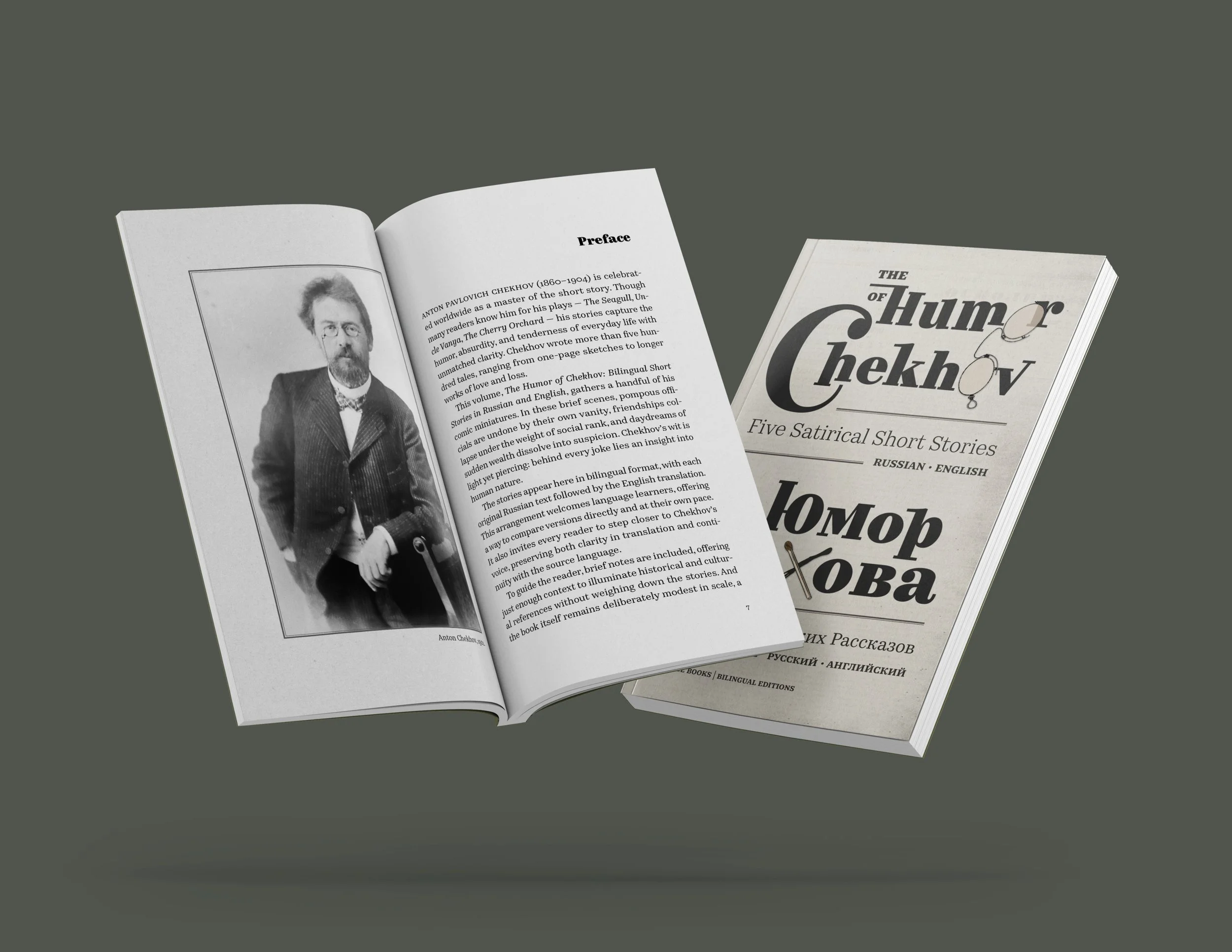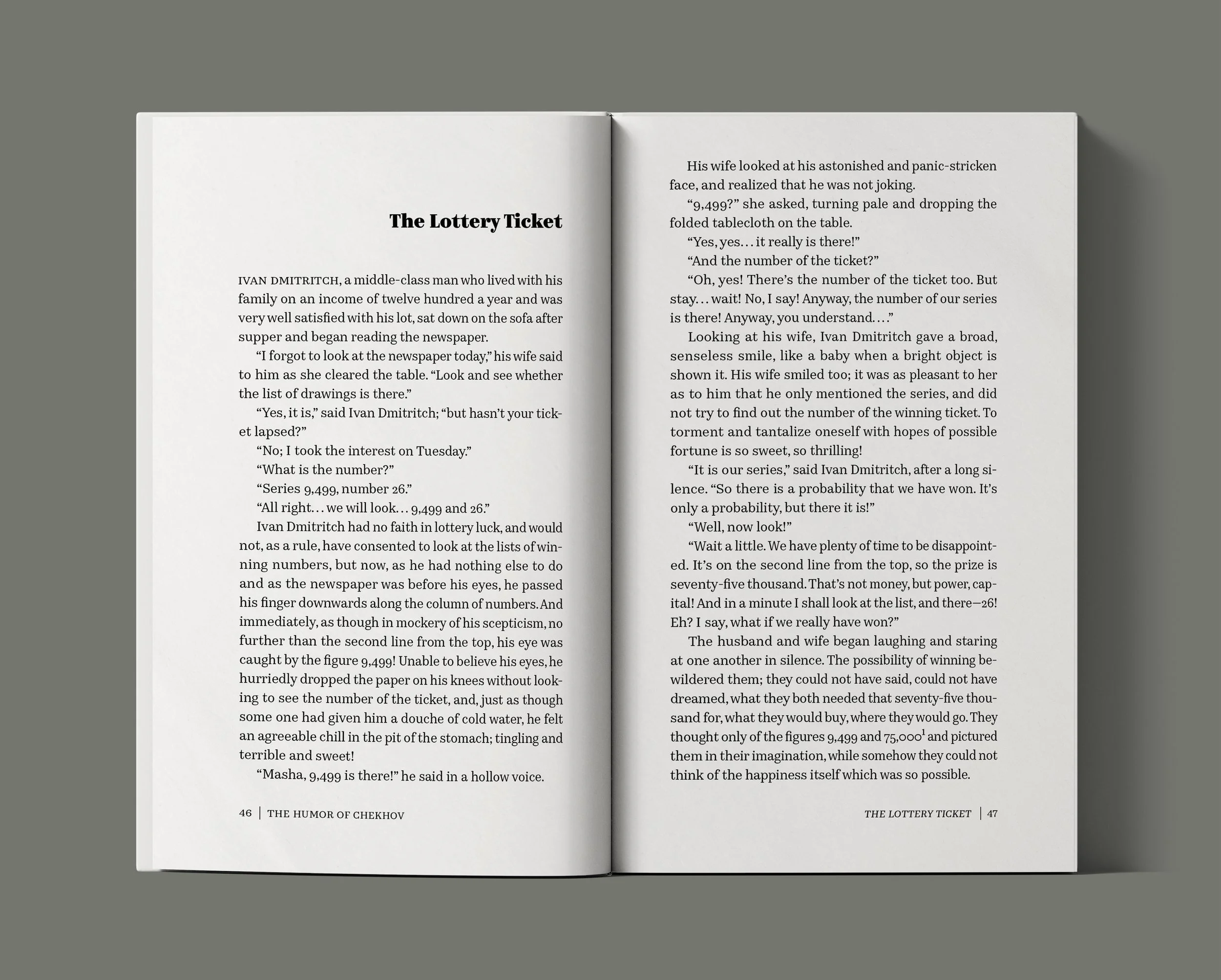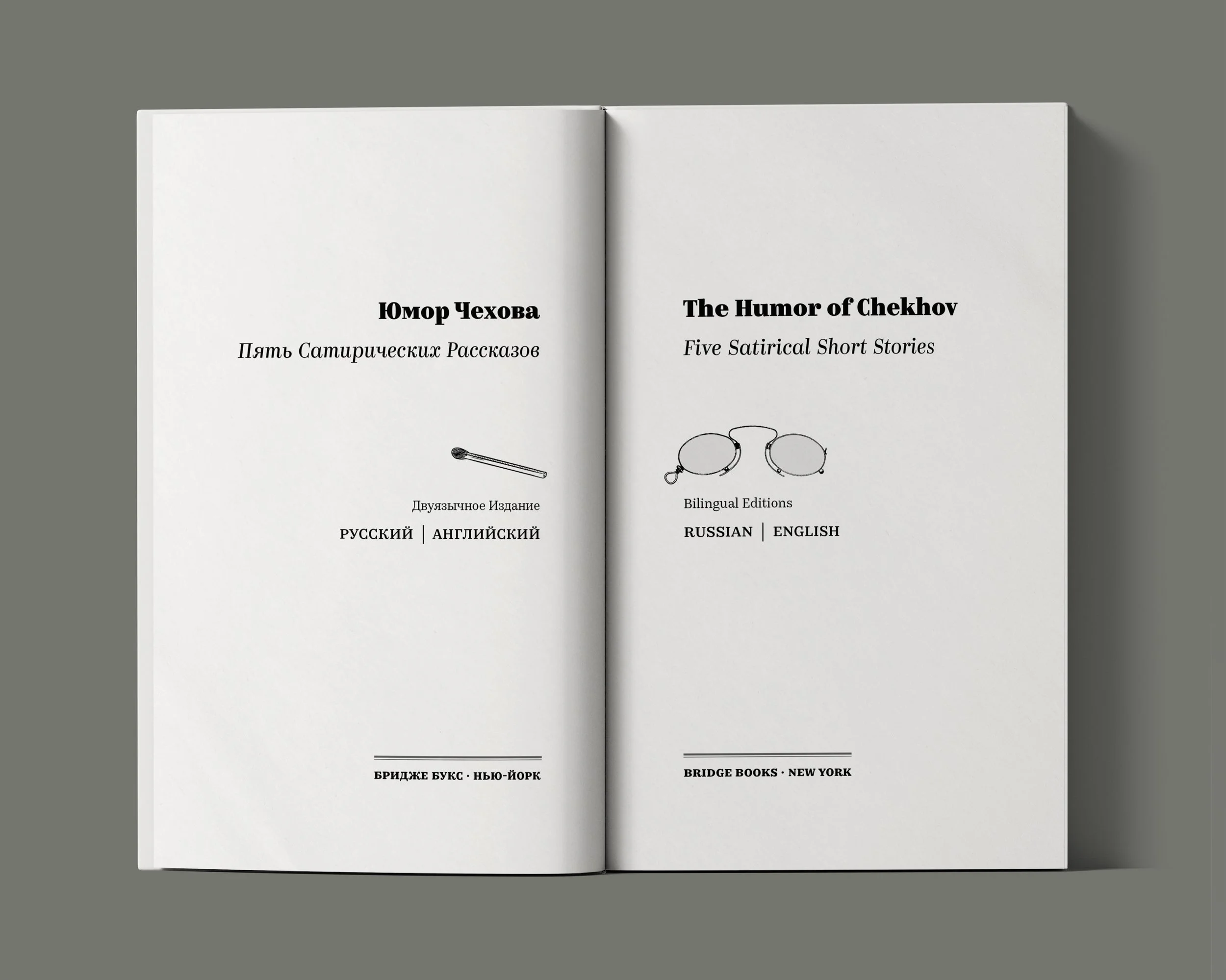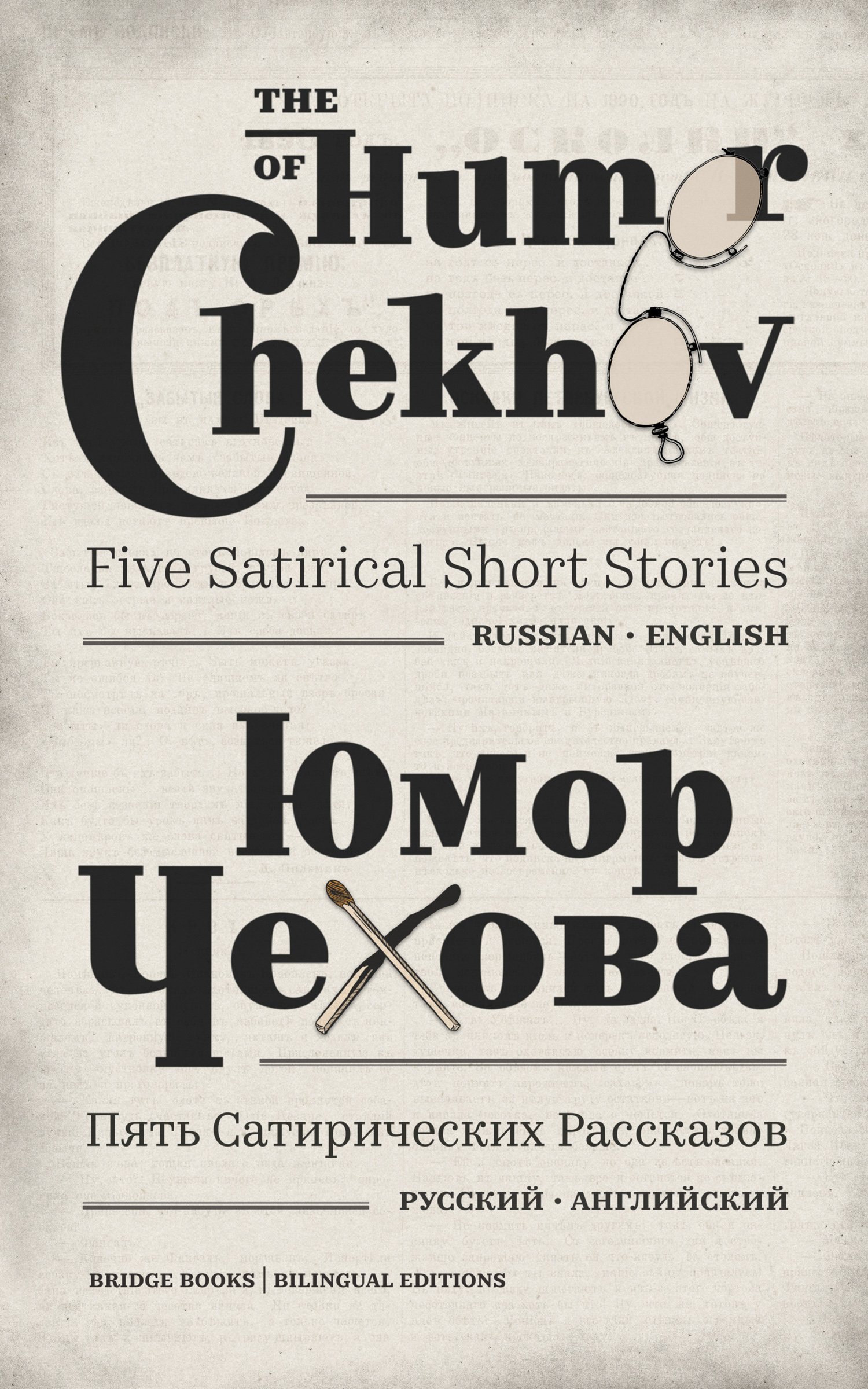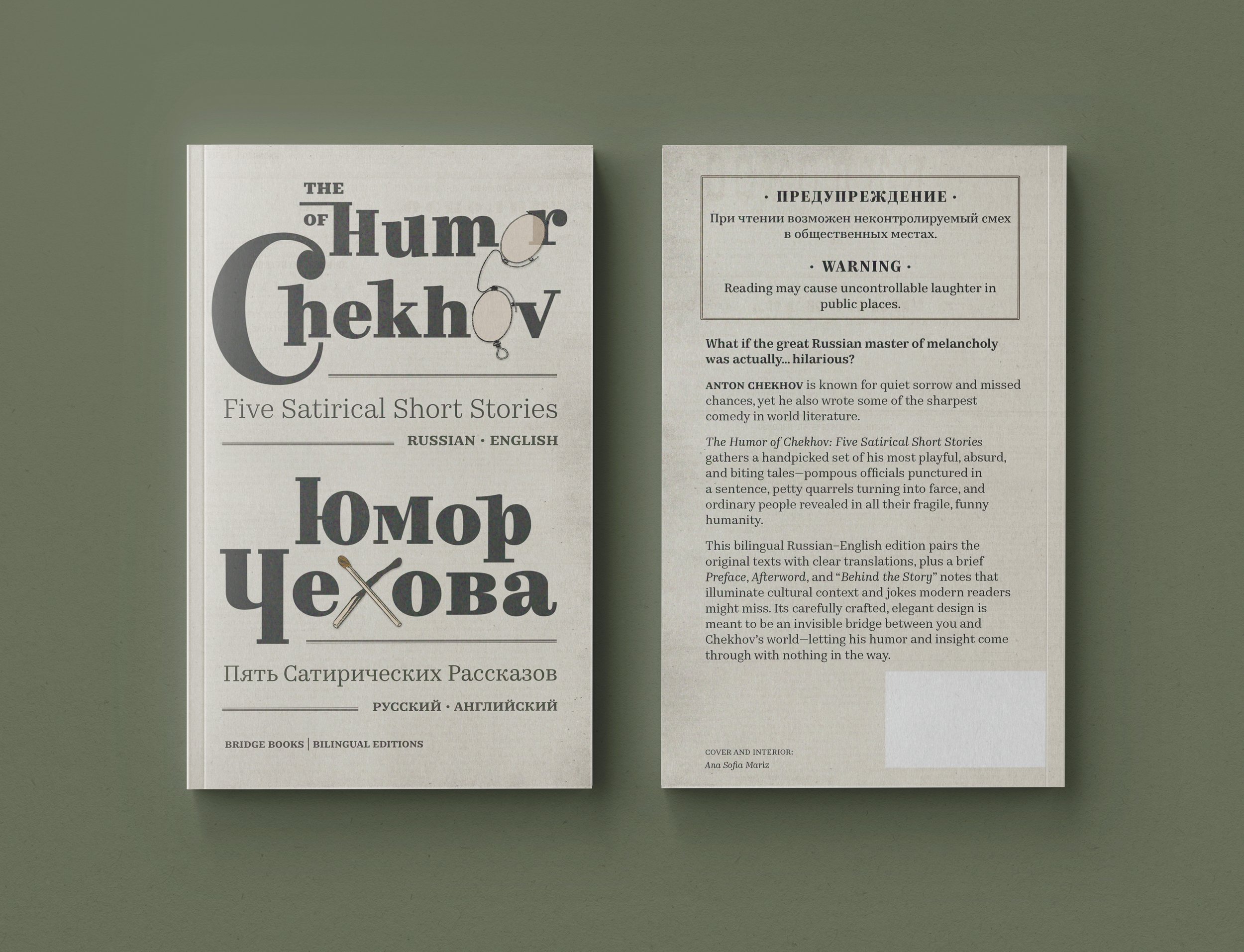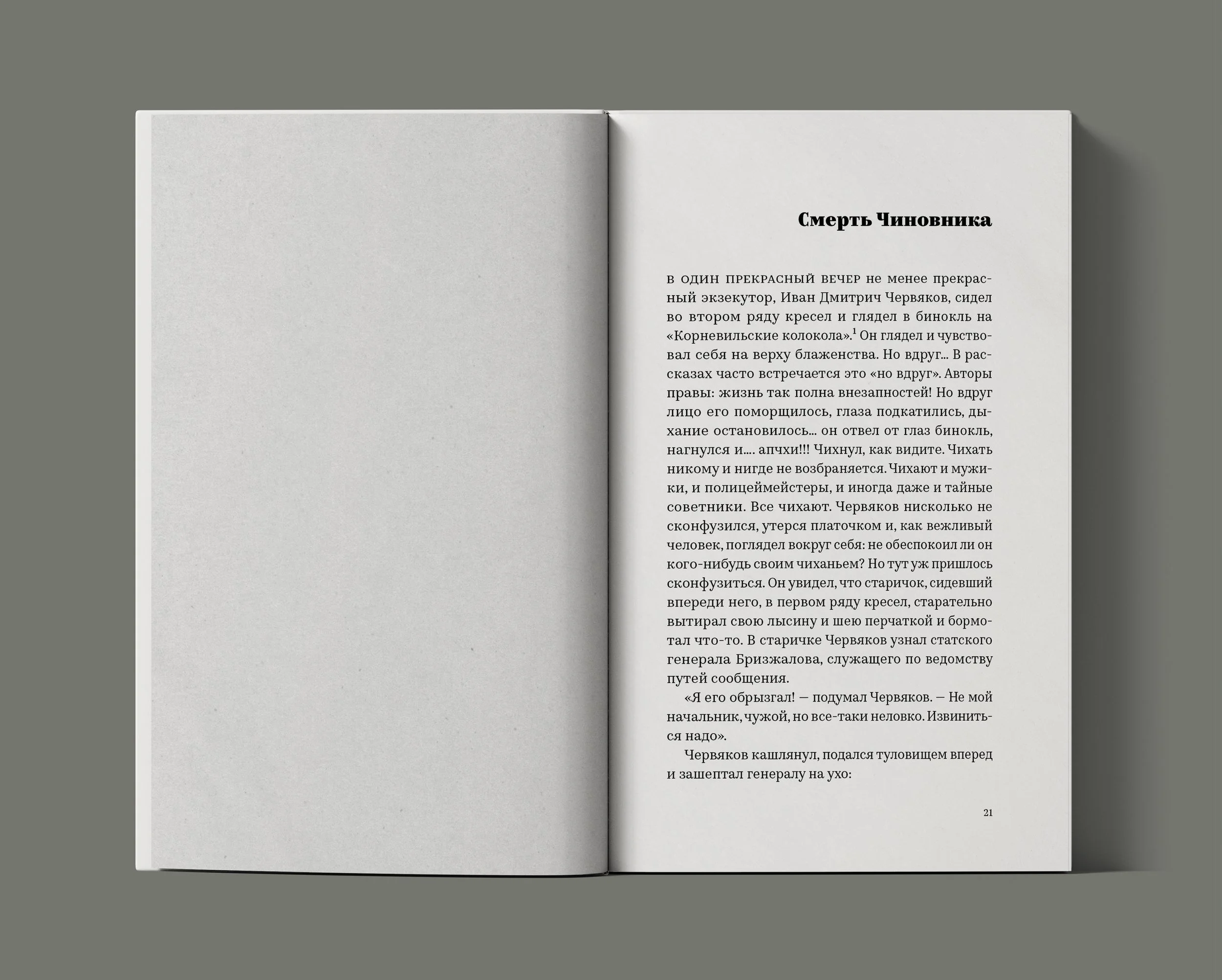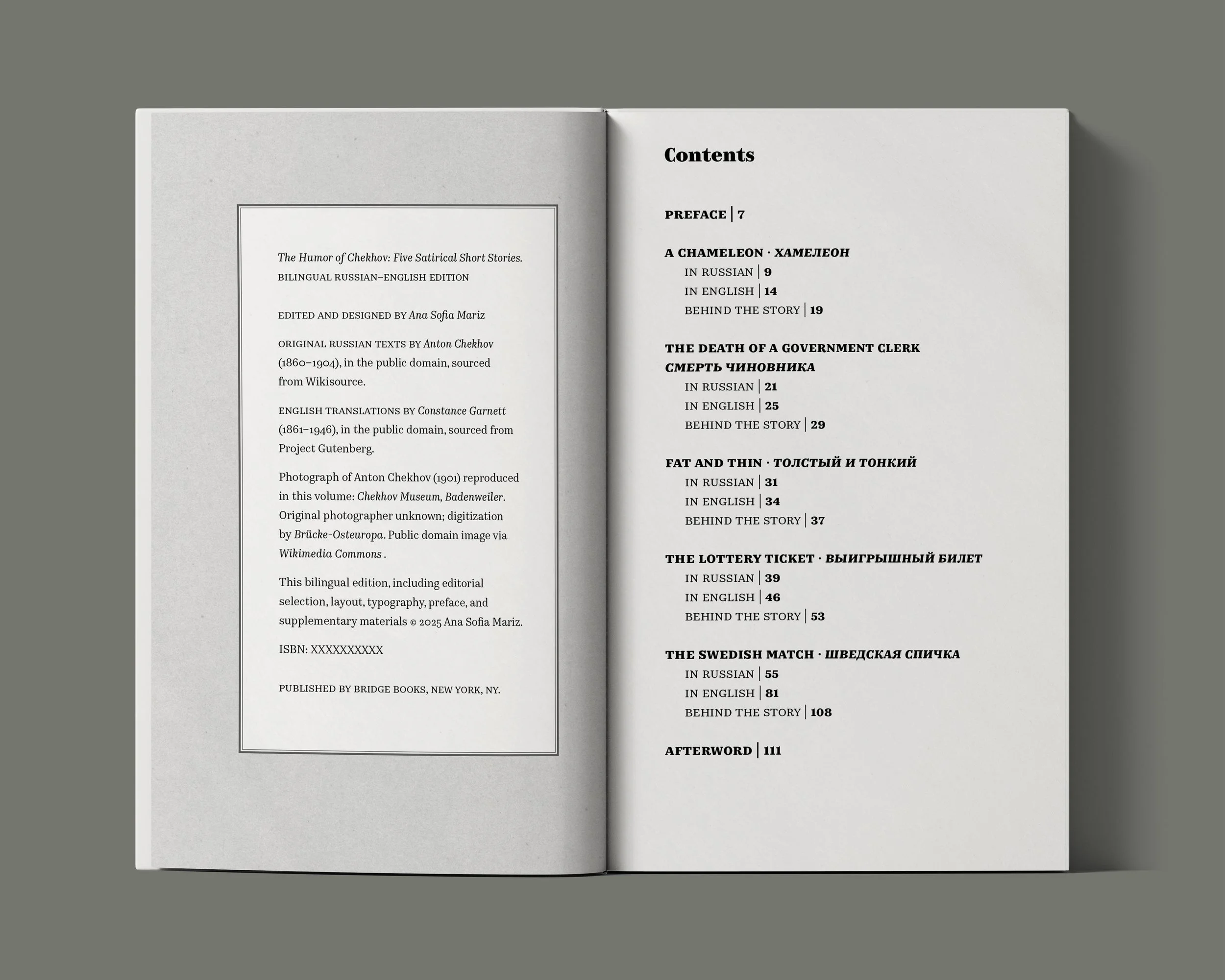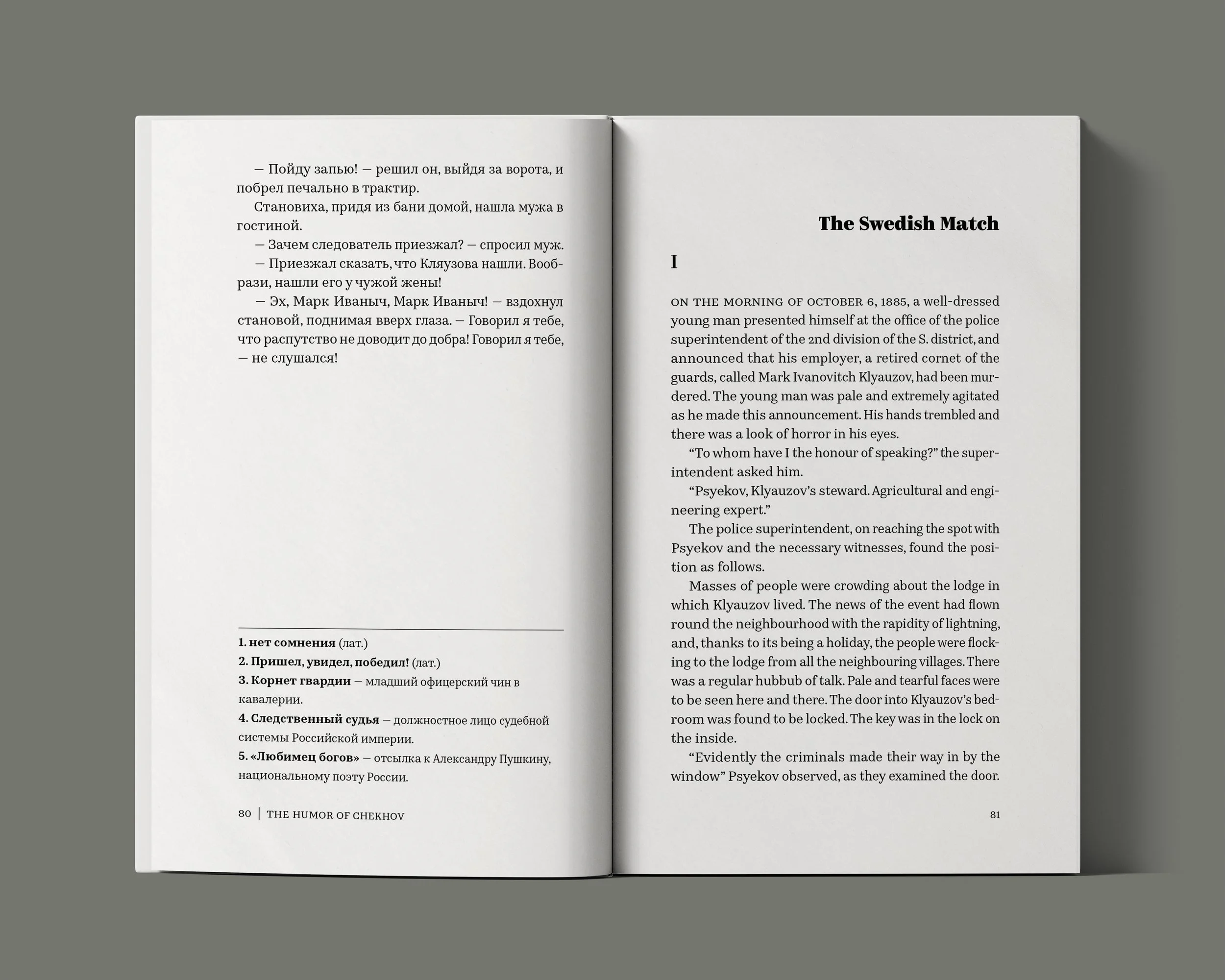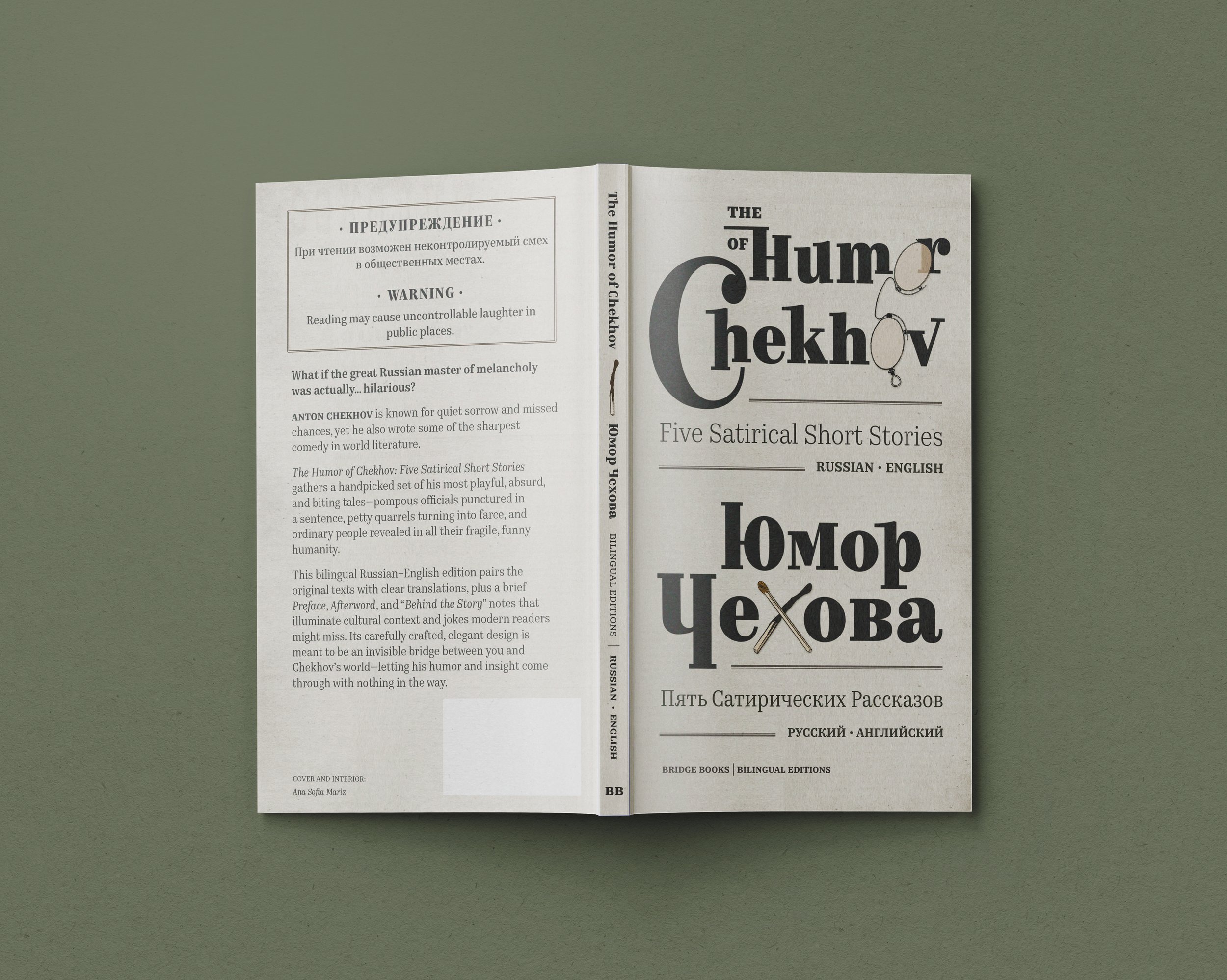
The Humor of Chekhov
Five Satirical Short Stories
by Anton Pavlovitch Chekhov (1860–1904)
Designed by Ana Sofia Mariz
Project Description
This slim bilingual volume gathers five of Chekhov’s sharpest comic miniatures, bureaucrats, blunders, and daydreams. In these brief scenes, pompous officials are undone by their own vanity, friendships collapse under the weight of social rank, and daydreams of sudden wealth dissolve into suspicion. Chekhov’s wit is light yet piercing: behind every joke lies an insight into human nature Each story appears in Russian first, then in English, followed by a brief “Behind the Story” note. A Preface and Afterword introduce Chekhov and his context, making this an ideal classroom or self-study introduction to his humane, satirical eye.
Imprint
Bridge Books, accessible, well-designed bilingual editions.
Intended Audience
Students and teachers of Russian language/literature; non-native Russian speakers, 2nd generation immigrants.
Design Direction
Accessible, unpretentious, non-academic, punchy, classics for everybody, witty, typographic.
Text
10.5/14 Plantin × 55p0